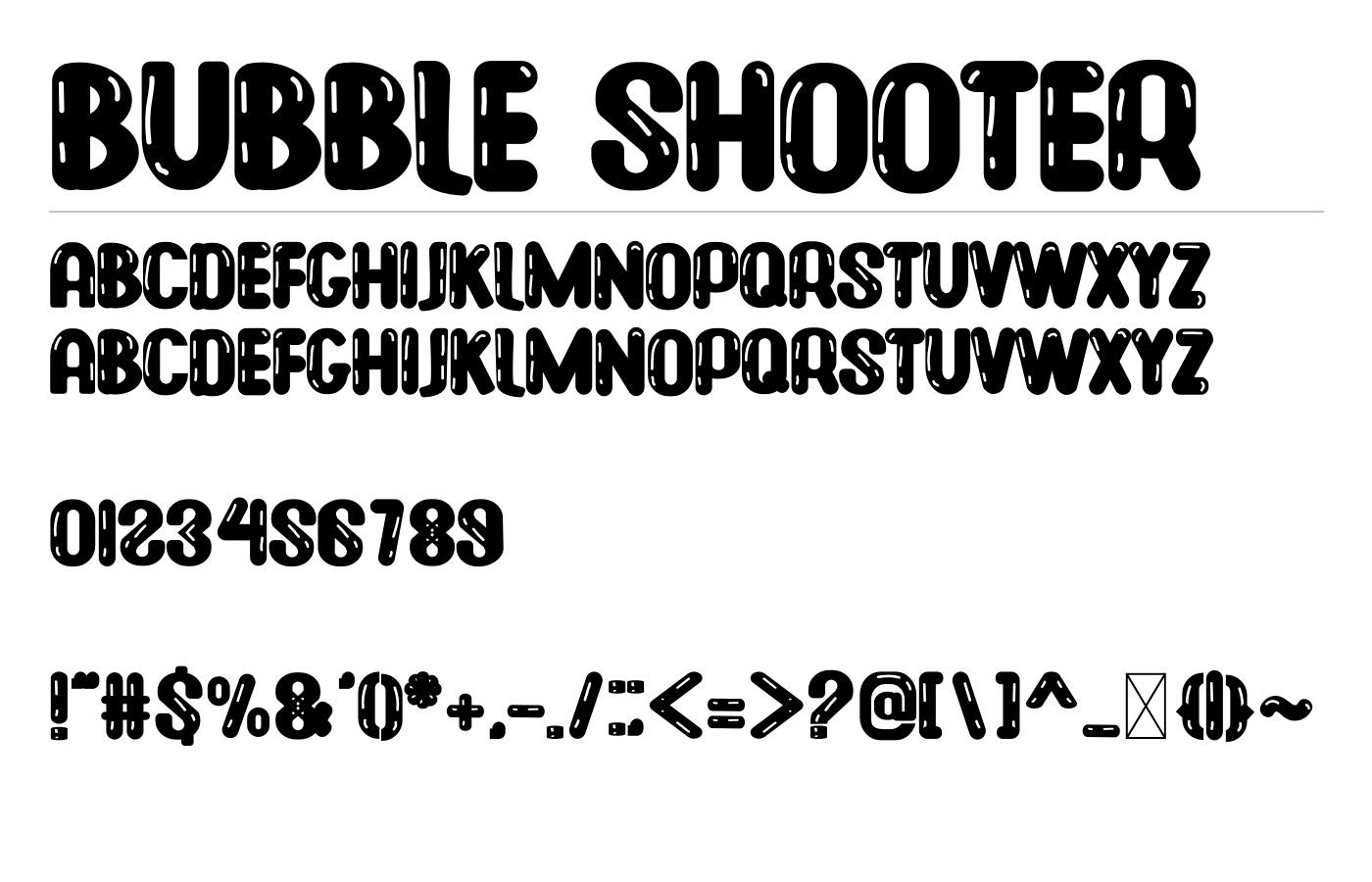
Bubble Shooter is a playful, bold sans serif font featuring rounded, bubble-like characters with a solid, chunky weight and subtle highlights, giving it a fun, cartoonish appearance. Its high x-height and uniform stroke width make it eye-catching and ideal for vibrant, youthful designs such as gaming logos, children’s products, and playful branding. This font shines in headlines and display use where a friendly, energetic vibe is desired.
Bubble Shooter Font
About Bubble Shooter Font
| Font family | Bubble Shooter Font |
| Designer | Nur Edi Prayitno |